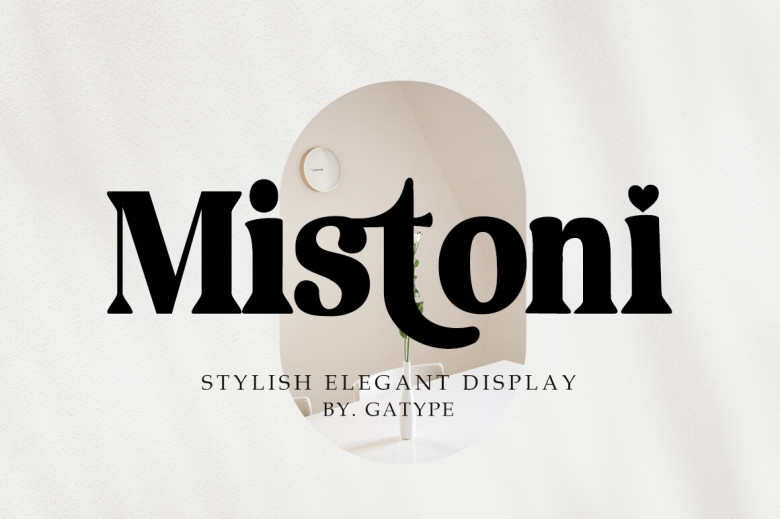
Mistoni Font
Mistoni is an elegant display serif font designed when you are feeling creative and in search of perfection, inspired by the striking, natural appearance of serifs that is so popular right now. Bold yet balanced and versatile designed with elegance in mind – its highercase letters, numerals, punctuation marks and punctuation all come together beautifully in Mistoni for elegant use on invitations, branding campaigns, photography sessions,
advertising watermarks or social media posts as well as product packaging designs or wedding invitations and stationery as well as special occasions or any special event necessary for perfection!
Mistoni Serif Font